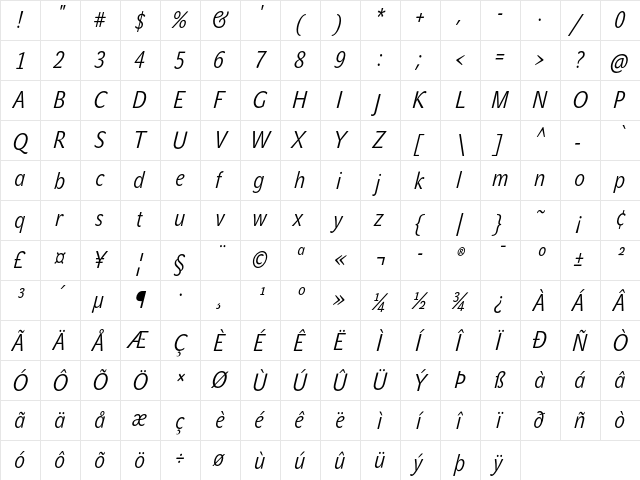
JohnSansCond Lite Pro Italic Font Preview
| Designer | Frantisek Storm |
Design Context for JohnSansCond Lite Pro Typeface
JohnSansCond Lite Pro takes a measured approach to typography — its balanced proportions and neutral character make it a reliable workhorse for both digital and print work. Its italic angle brings a sense of urgency and motion to the letterforms. The condensed width makes it efficient for tight spaces without sacrificing legibility.
Pro Tip: Use JohnSansCond Lite Pro for emphasis, pull quotes, and subheadings where its slanted energy can add rhythm to the layout.